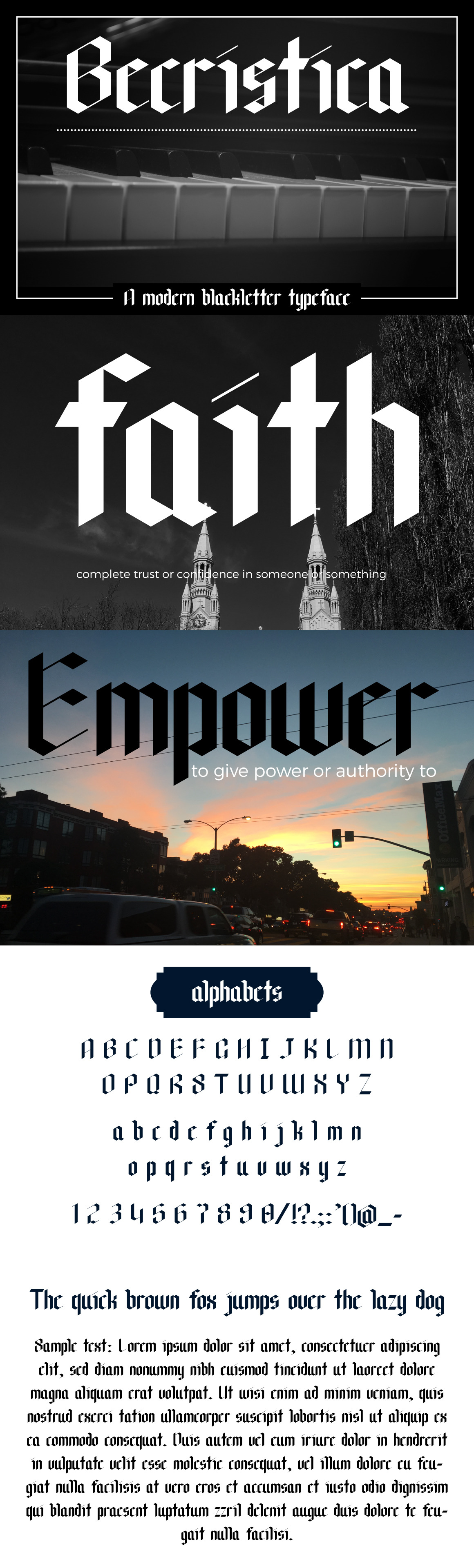
Becristica Blackletter Font
A typeface inspired by my Pilot parallel calligraphy pen. (http://amzn.to/2rhe89B)
It's perfect for use in display, header, poster, old style business card, old style book cover, etc.
- Number 0-9
- 12 Punctuations